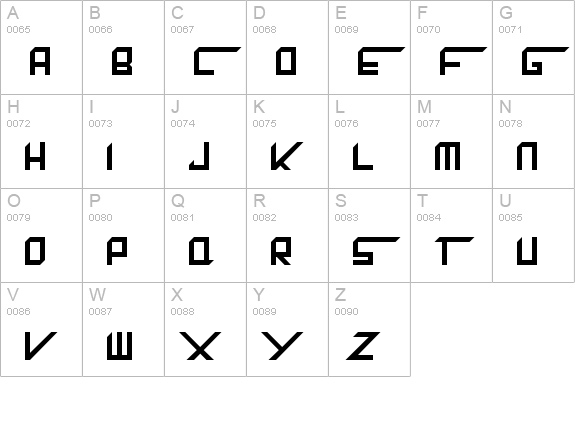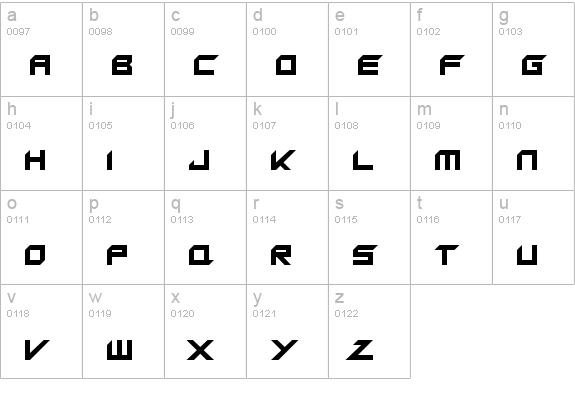
King Dubstepikz Font Details
King Dubstepikz is a free for personal use font in the Modern > Sci-Fi category, designed by Darrell Flood. It has been downloaded 295 times and is available for Windows, Mac and Linux.
Introducing the majestic and bold King Dubstepikz font, a powerful typeface that exudes strength and authority. With its intricate design and modern aesthetic, King Dubstepikz is perfect for making a statement in your projects. This font is a versatile choice for various design needs, whether you are creating a logo, poster, or branding materials.
What sets King Dubstepikz apart is its unique blend of futuristic elements and classic elegance, making it a standout choice for designers looking to make an impact. The sleek lines and sharp edges of this font convey a sense of sophistication and creativity, making it ideal for projects that require a contemporary touch.